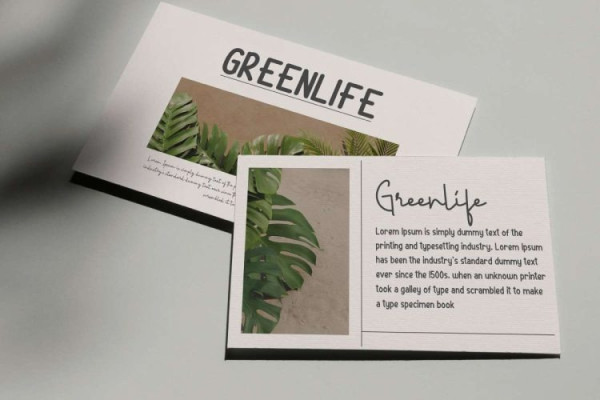
Birthday Girl Font
Birthday Girl Font is a fun and cheerful font duo by EdricStudio. This cute font is suitable for many design projects such as make birthday cards, invitations, products design, sweet quotes and much more. These two fonts can be perfectly combined to create several unique designs as well as casual-formal events projects
Birthday Girl Font is is a gorgeous combination of a comic sans serif and a signature script. These stylish fonts will also be great for modern designs, logos, posters, branding, social media or blog posts, headers and more! These fonts are composed by two fonts designed to complement each other perfectly. Together or apart, these fonts are ideal for adding a chic and cheery touch to your projects. . Easy to use in any software, this font is PUA encoded which means you can access all of the glyphs with ease!